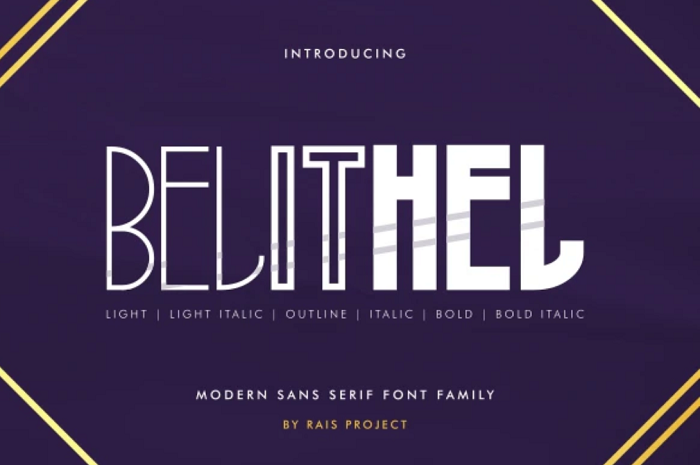
40 Best Outline Fonts and Typefaces for 2023
Need a stylish font that will help you design to look more professional and impactful? You need an outline font.
Outline fonts are great for all uses, from web design to social media and more. However, a simple search for downloadable fonts will bring up thousands of different options, so finding the right font can be overwhelming.
That’s why we created this list of the 40 best outline fonts in 2023 so that you don’t have to spend hours searching for the perfect font for your next project.
But before we get into it, let’s take a quick look at what outline fonts are and how you can use them.
What is an Outline Font?
Outline fonts are fonts which that use geometric outlines of letter and characters. The main advantage of outline fonts is that they are easily scalable so they can be sized up or sized down without distorting the shape.
Outline fonts are a great choice if you are looking to create professional designs that will easily catch the reader’s attention.
Whether you’re creating a website logo or a business newsletter, a good outline font will really improve your designs.
Best Outline Fonts – Our Top Pick
So without further ado, let’s jump into the list of the best outline fonts. Starting with our personal favorite.
01. Exco Sans Minimalist Typeface
Exco Sans is an ultra-modern and minimalist outline font that can give even the simplest designs a touch of style. In this pack from Envato Elements, you can make use of the Exco Sans outline font as italic, shadow, and regular version of the font.
Why Exco Sans is our top-pick
The 4 different designs give you unlimited flexibility when it comes to designing text-based media. And in addition to that, the minimalist yet stylish design makes it perfect for a range of different projects.
02. Portico Outline
Portico Outline is a bold font that is both minimal and eye-catching. This font looks great when used for titles and large lines of text and also when used alongside the regular Portico typeface font.
03. Burford Outline
Burford Outline is a clean and stylish font that is inspired by European fonts and designs. This font family comes with 13 different fonts including the outline option and also includes an extras pack with all the basic keyboard characters.
04. Gibsons Outline
Gibsons is a stylish and modern font pack that is great if you’re looking to create designs with that signature ‘hipster’ feel. The font pack comes with a selection of bold, semi-bold, and regular outline fonts for you to choose from.
05. Visia Duo
Visia Duo is a versatile font pack that includes 4 different versions of the outline font; Regular, italic, bold, and bold italic. The font pack also includes a non outlined version of the font.
06. Moonlite
Moonlite is a bold outline typeface perfect for making titles and text lines stand out. The pack comes with the outline font in OTF/TTF/WOFF as well as a matching solid font.
07. Melburch Typeface
Melburch Outline is a vintage-inspired outline font. It’s great for creating retro designs. This outline font pack comes with a regular and a slanted version of the font.
08. Nostromo Outline
Nostromo is a futuristic font inspired by science fiction. It’s perfect for companies in the gaming or tech space. The pack includes regular and outline versions of the font and also has punctuation to fit a variety of European languages.
09. Visage Outline
Visage outline is a simple yet visually impactful outline font that looks great as part of neon-inspired designs. This is an uppercase font, and the pack also includes common punctuation and numbers.
10. Forever Freedom
40. Olesans
Olesans is a trendy outline font that’s great for promotional content and logos. The font comes with uppercase, lowercase and special characters.
Final Thoughts
So there you have it, the 40 best outline fonts for 2020. If you’re interested in learning more about different types of fonts, you may want to see our roundup on Best Fonts for Logo Designs or Best Modern Fonts.